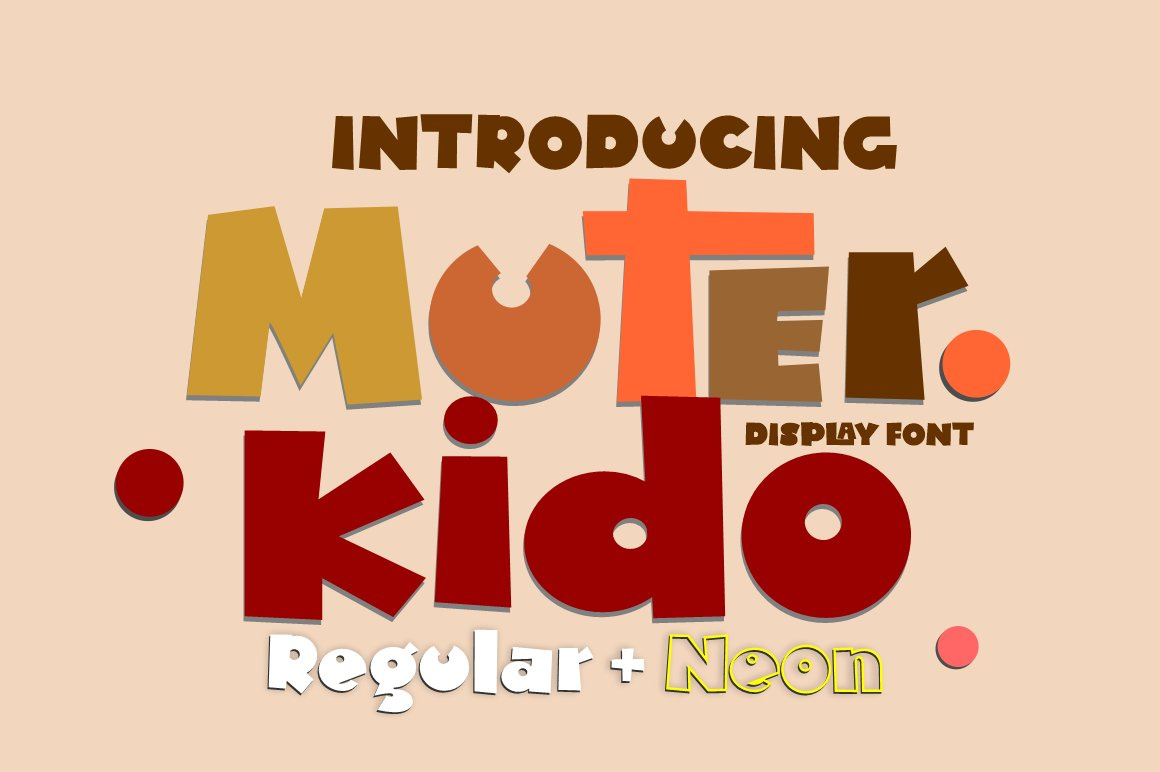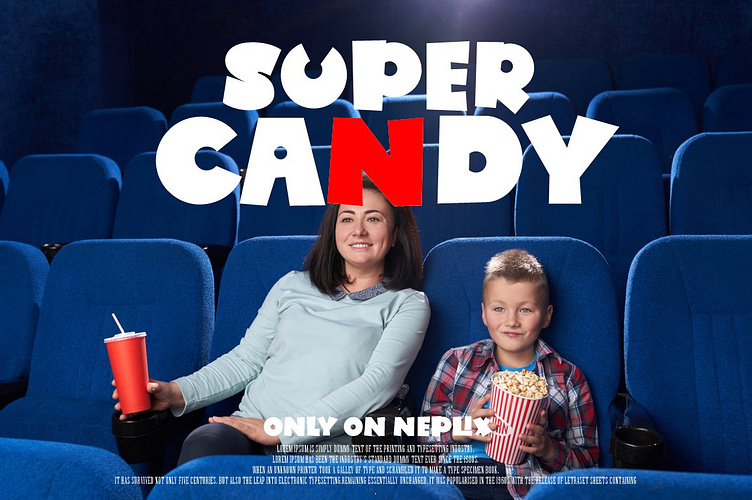
Muter Kido - Display Cute fonts
Add this chunky lettered font to your designs and notice how it makes them come alive! This font is PUA encoded which means you can access all of the glyphs and swashes with ease!